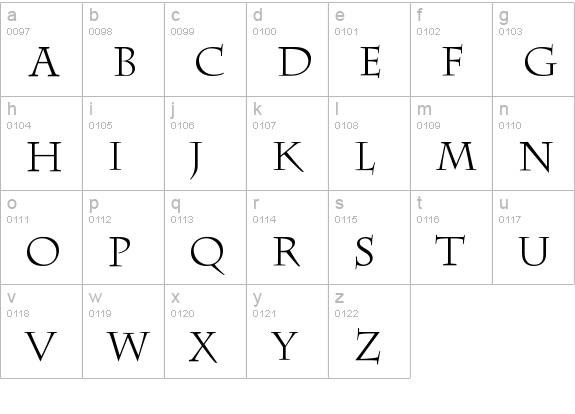
Charlesworth Font Details
Charlesworth font is a stunning display typeface that exudes elegance and sophistication. Its unique and stylish design makes it perfect for various creative projects, from branding to print materials. With its clean lines and classic appeal, Charlesworth font adds a touch of timeless charm to any design. The best part about Charlesworth font is that it is available for free! You can easily download this beautiful font at FontsMarket.com and start using it in your projects right away. Whether you're designing a logo, creating invitations, or working on a poster, Charlesworth font will bring a touch of class and sophistication to your work. Don't miss out on this amazing opportunity to enhance your designs with the exquisite Charlesworth font - download it for free today at FontsMarket.com!